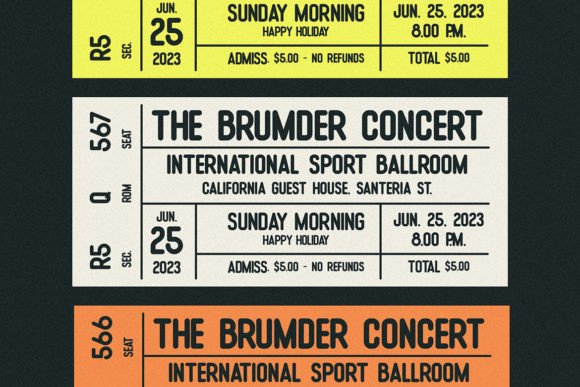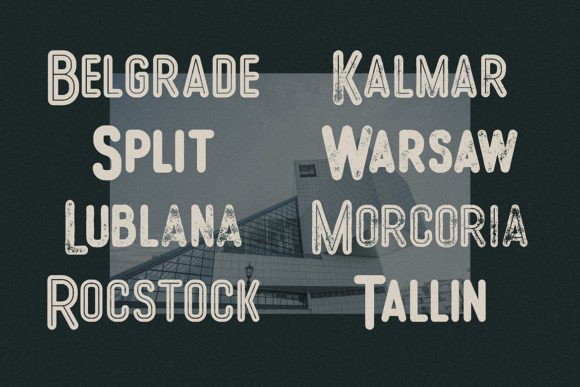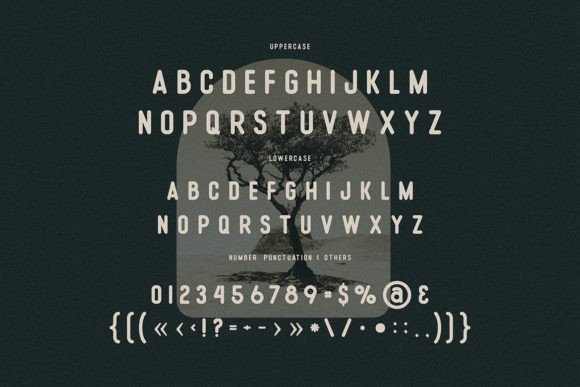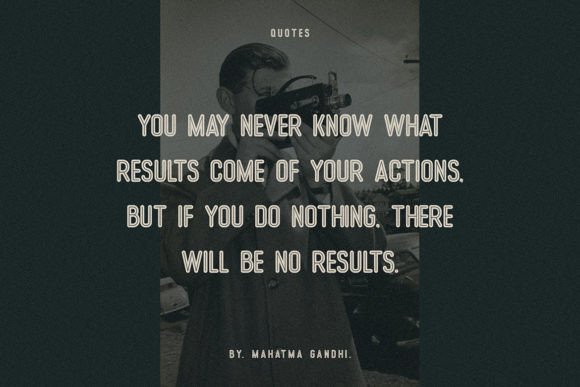
Flow Font – Free Download
Introduction to Flow Font
Flow is a modern sans-serif font that is sleek, minimalistic, and clean.
| 📌 Product Name | Flow Font |
| 👤 Author | JumboDesign |
Its sharp, rounded edges give it a contemporary feel, while still maintaining a timeless and professional aesthetic Its sophisticated style makes it perfect for both print and digital design projects.
Key Features of Flow Font
Why Choose Flow Font?